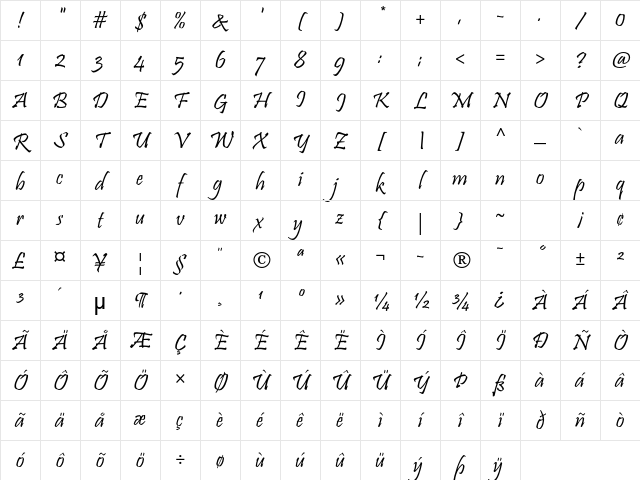
Pristina Std Regular Free Font
Pristina Std Regular
Designer: Phill Grimshaw
Design Context for Pristina Std
Pristina Std is a composed and adaptable typeface that performs quietly and consistently across a wide range of design contexts.